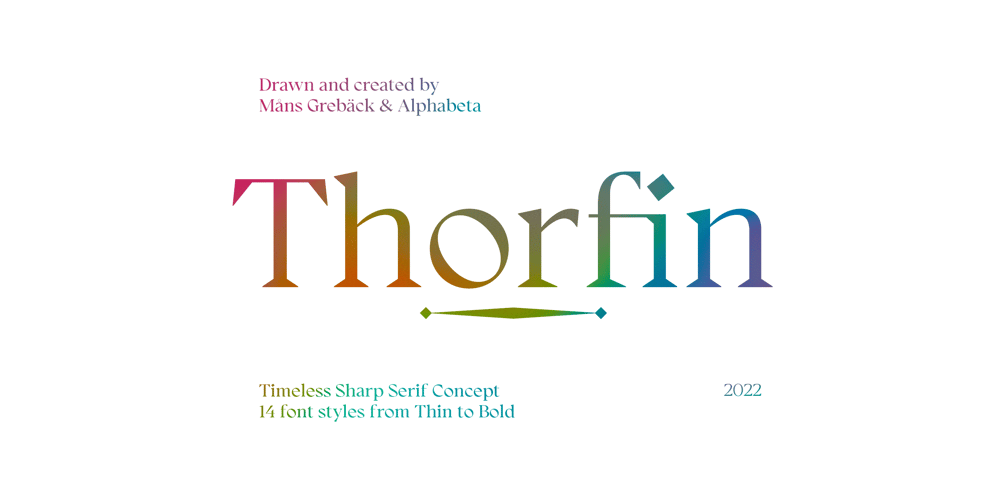
Thorfin Font Family was designed by Måns Grebäck and published by Mans Greback. Thorfin contains 15 styles and family package options. Thorfin is a sharp serif typeface. Drawn and created between 2020 to 2022, this modern lettering has a distinct personality while maintaining a regularity of a body text. Thorfin gives any project a smart character with its geometric shapes and crisp edges.The Thorfin family consist of 14 fonts, such as Thin, Light, Regular, Medium, Bold, Black and Italic.Also includes a variable font! Only one font file, but the file contains multiple styles. Use the sliders in Illustrator, Photoshop or InDesign to manually set any weight and width. This gives you not only the predefined styles, but instead more than a thousand ways to customize the type to the exact look your project requires. More info about Variable Fonts: https://mansgreback.com/variable-fontsThe font is built with advanced OpenType functionality and has a guaranteed top-notch quality, containing stylistic and contextual alternates, ligatures and more features; all to give you full control and customizability. It has extensive lingual support, covering all Latin-based languages, from Northern Europe to South Africa, from America to South-East Asia. It contains all characters and symbols you’ll ever need, including all punctuation and numbers.